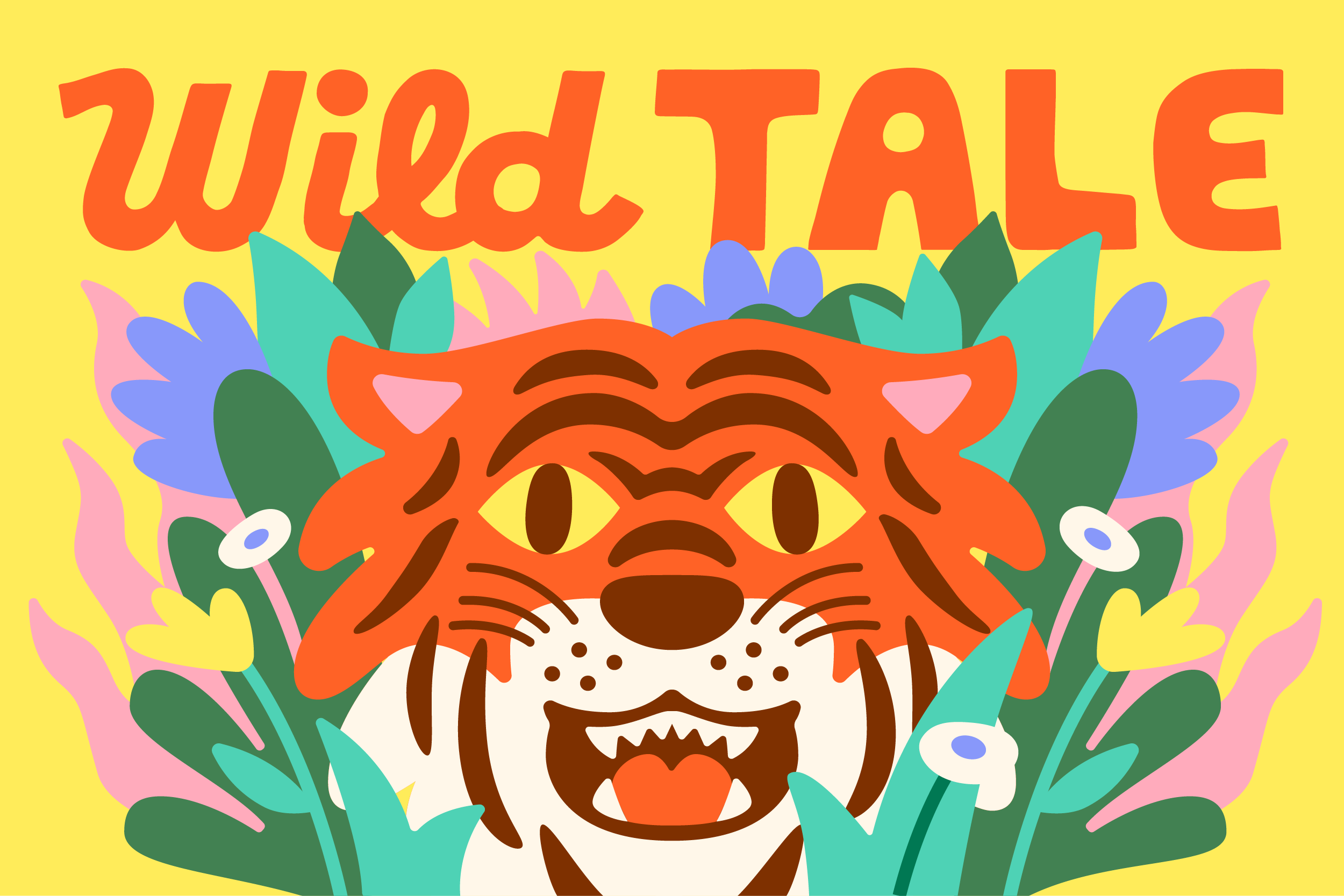
Wild Tale - Display Fonts
Once upon a time, we doodled up a pair of hand-drawn fonts — a chunky, all-caps sans and a loose, playful script — made to bring a little charm and character to whatever you’re working on. Whether it's branding, posters, packaging, or just a goofy side project, Wild Tale adds a touch of personality without trying too hard.
The script includes both uppercase and lowercase, while the blocky sans comes in two uppercase styles for mixing things up. You’ll also find numbers, punctuation, and a handful of extra glyphs to add more flair where it counts.